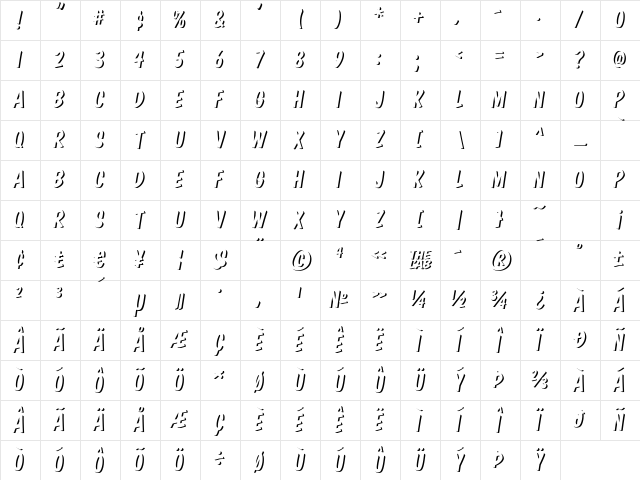
Komika Title - Emboss Regular Free Font
Komika Title - Emboss Regular
Designer: WolfBainX & Apostrophe
Complete Komika Title - Emboss Regular glyph index. Displaying only characters natively supported by Komika Title - Emboss Regular font.
Design Context for Komika Title - Emboss
Komika Title - Emboss is a composed and adaptable typeface that performs quietly and consistently across a wide range of design contexts.